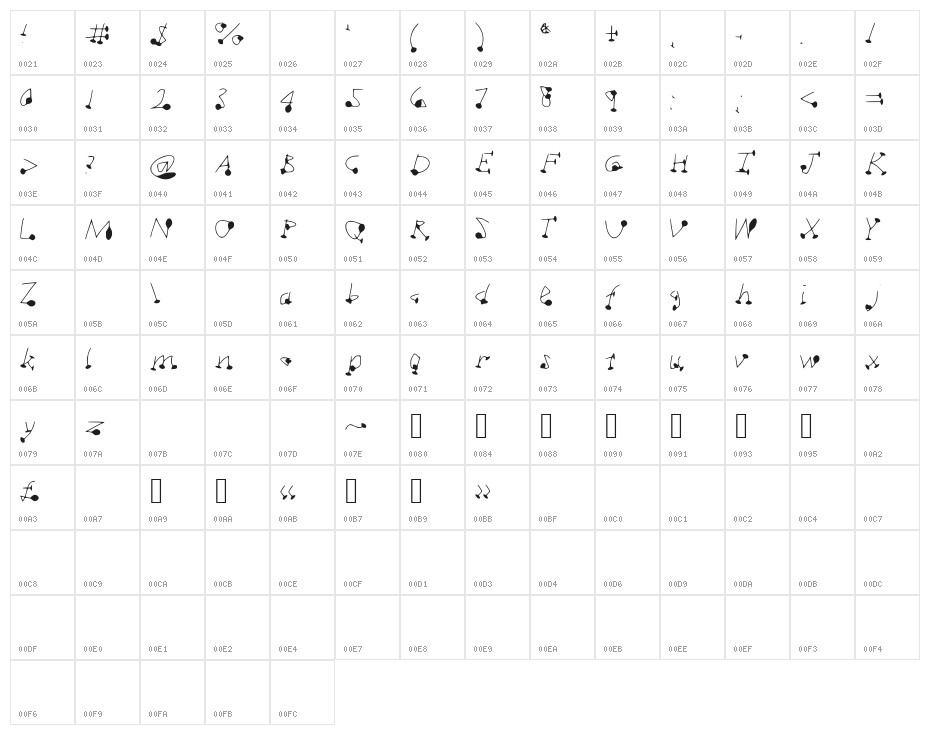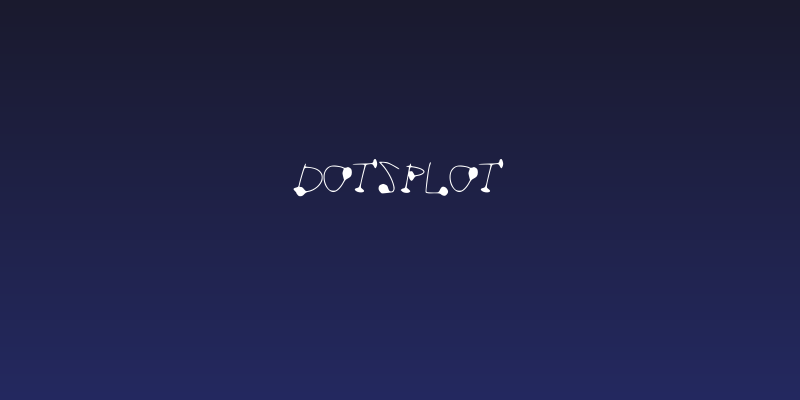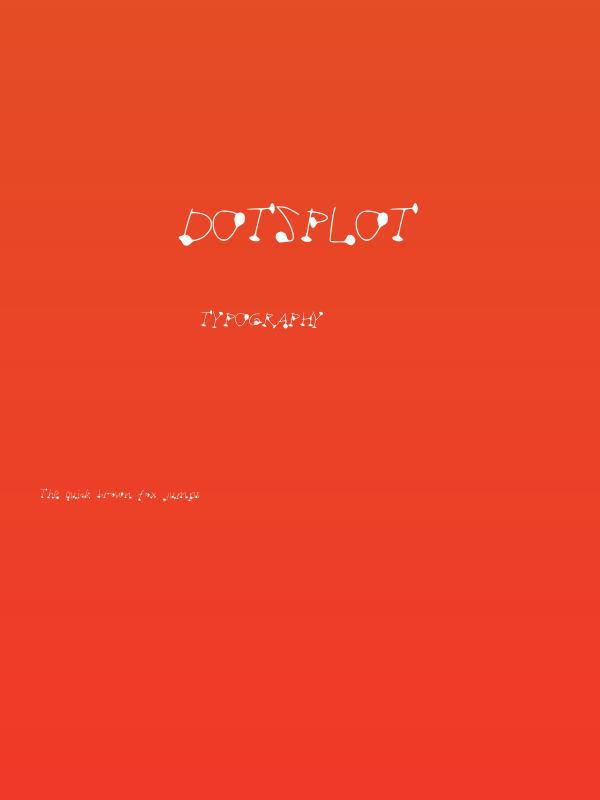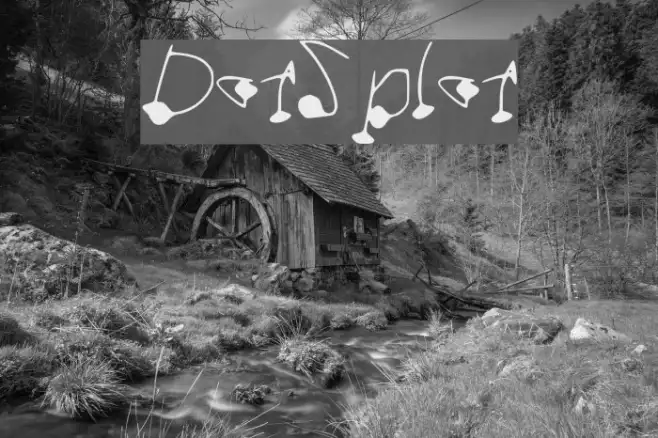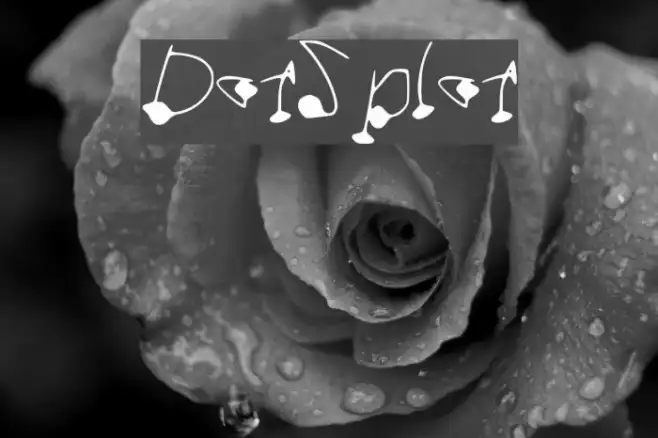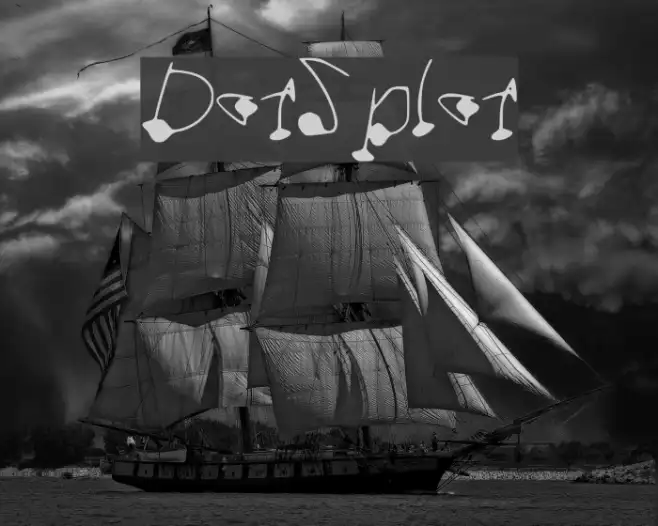
DotSplot Font
DotSplot Description
This font features a unique and playful design characterized by bold, irregular dots that punctuate the ends of each stroke, creating a whimsical and artistic appearance. The letters are fluid and dynamic, with a hand-drawn quality that adds a sense of movement and creativity. The uppercase and lowercase letters maintain a consistent style, with the dots varying in size and placement, adding to the font's quirky charm. Numbers and special characters follow the same design principles, ensuring a cohesive look across all glyphs. This font's distinct style makes it stand out, offering a fresh and unconventional approach to typography.
| Overall Style | Artistic, Whimsical |
| Use Case | Logos, Posters, Creative projects |
| Proposed Projects | Ideal for creative projects such as children's books, playful branding, artistic posters, and unique invitations. |